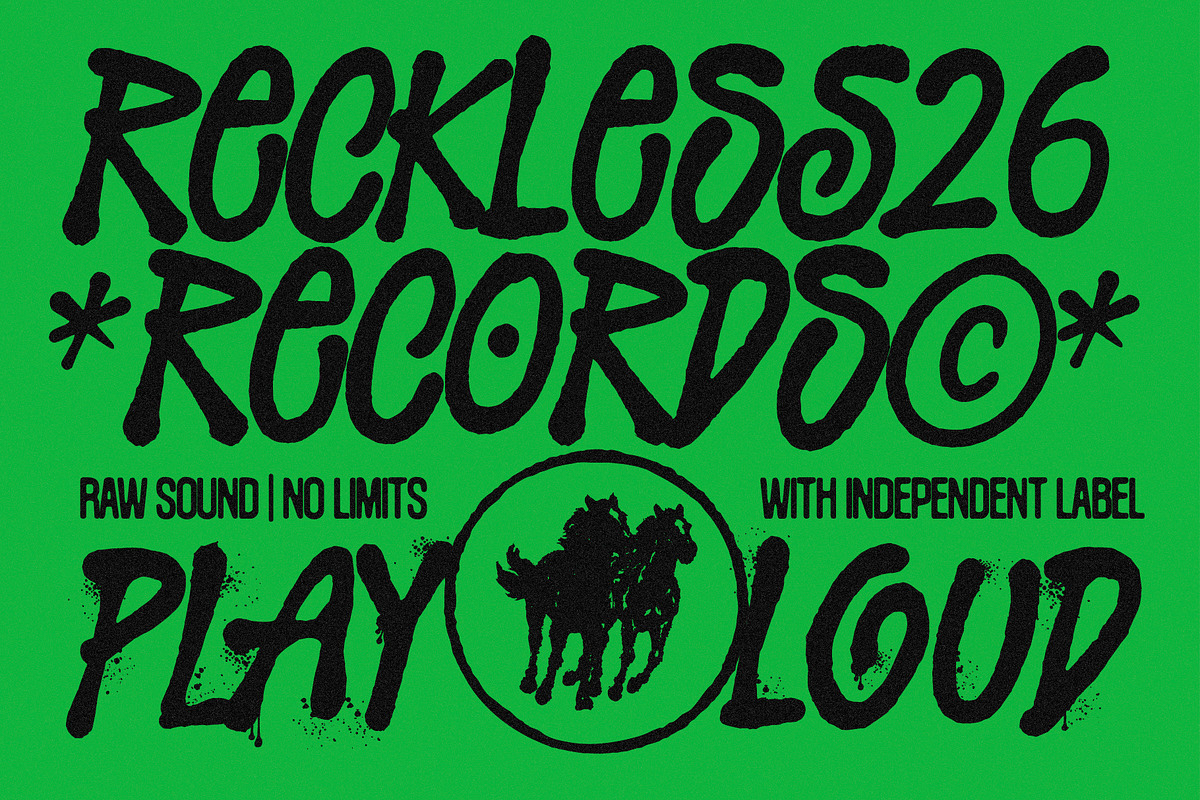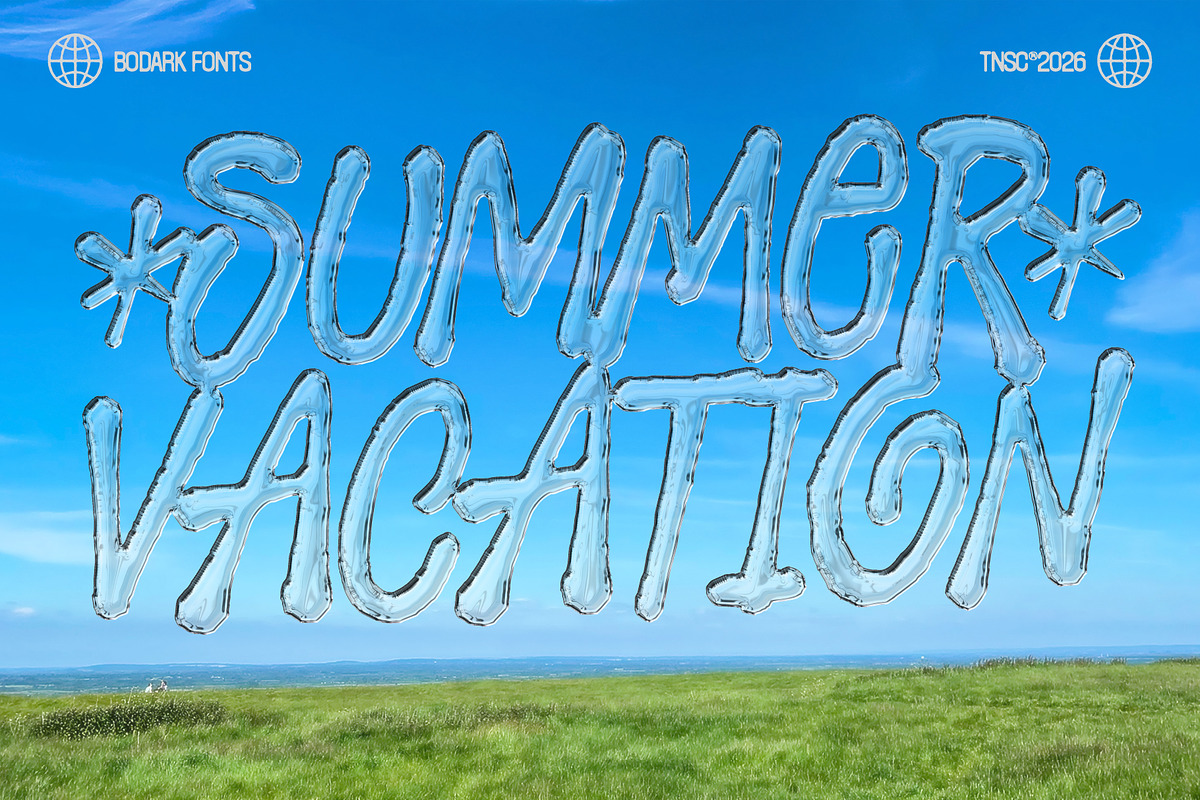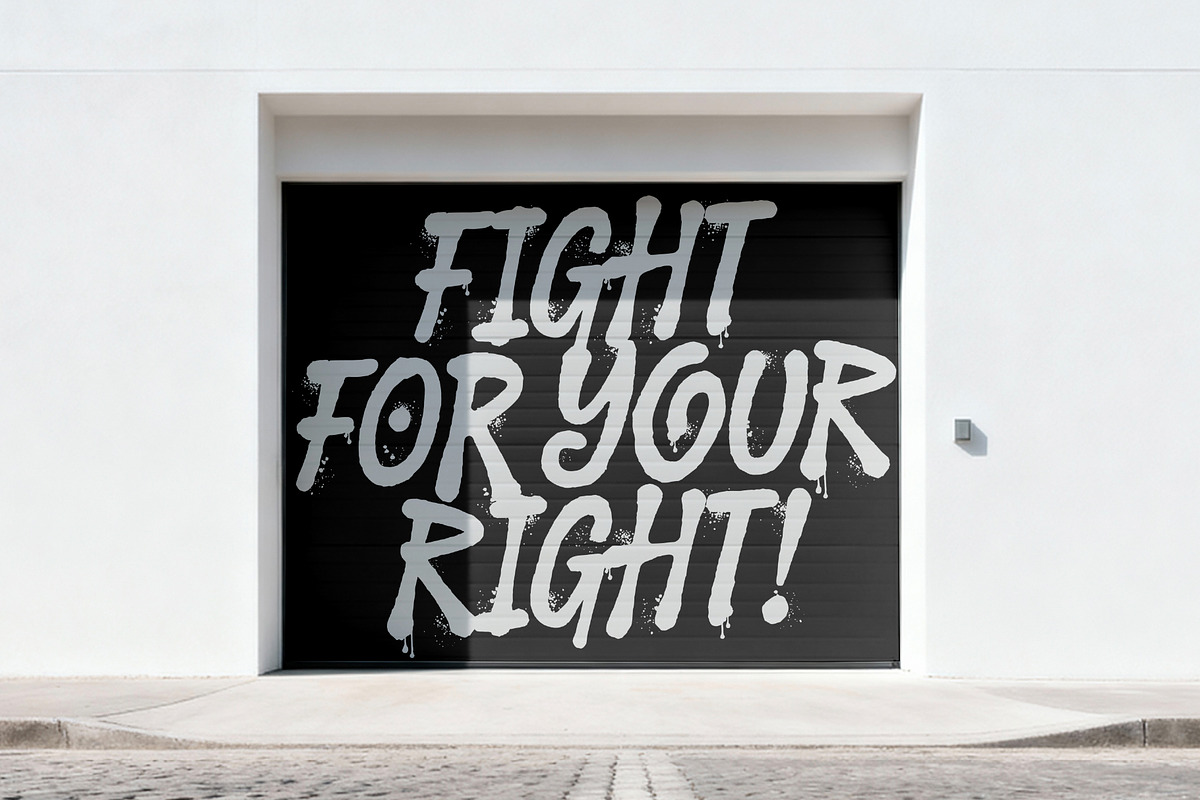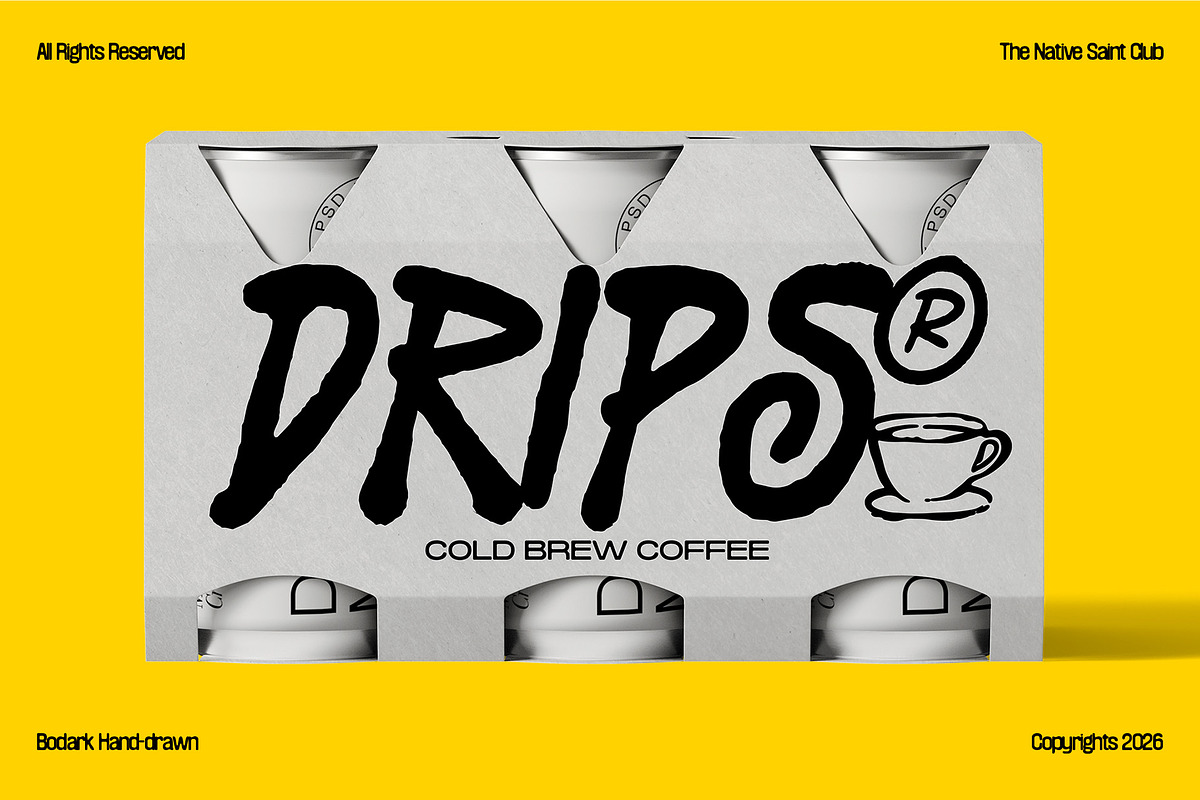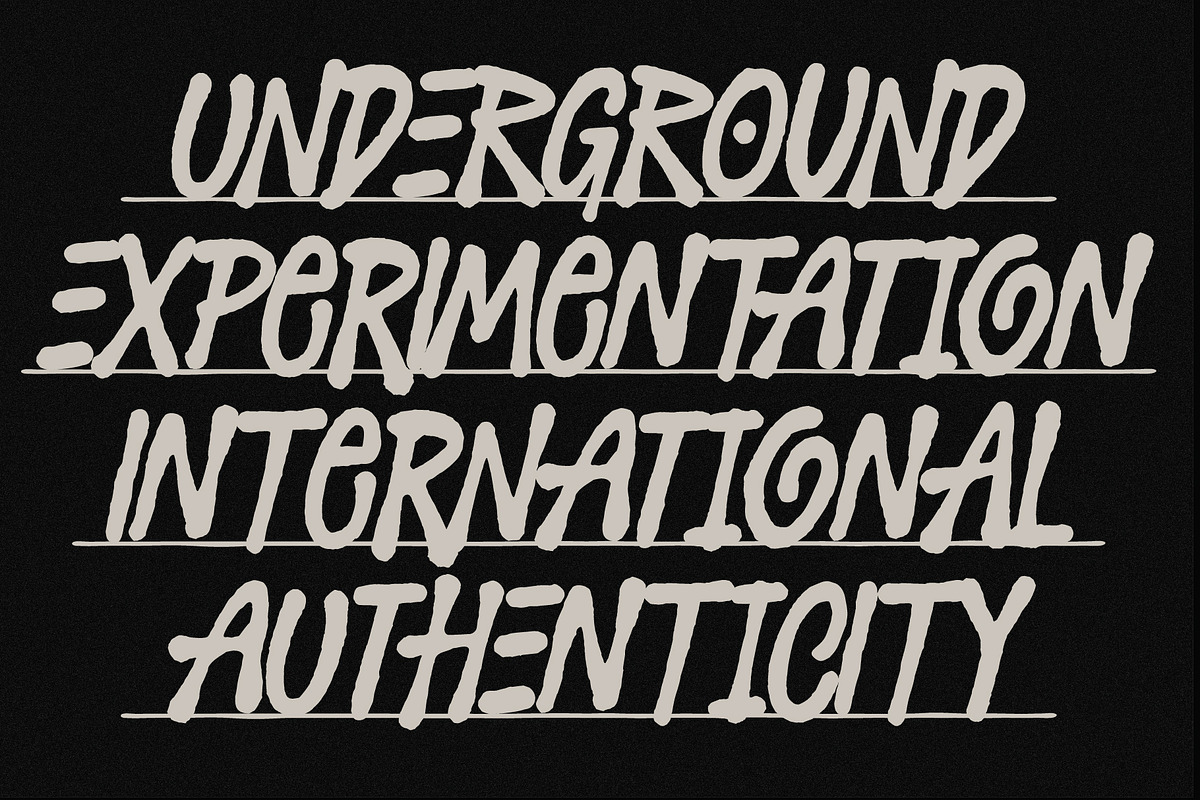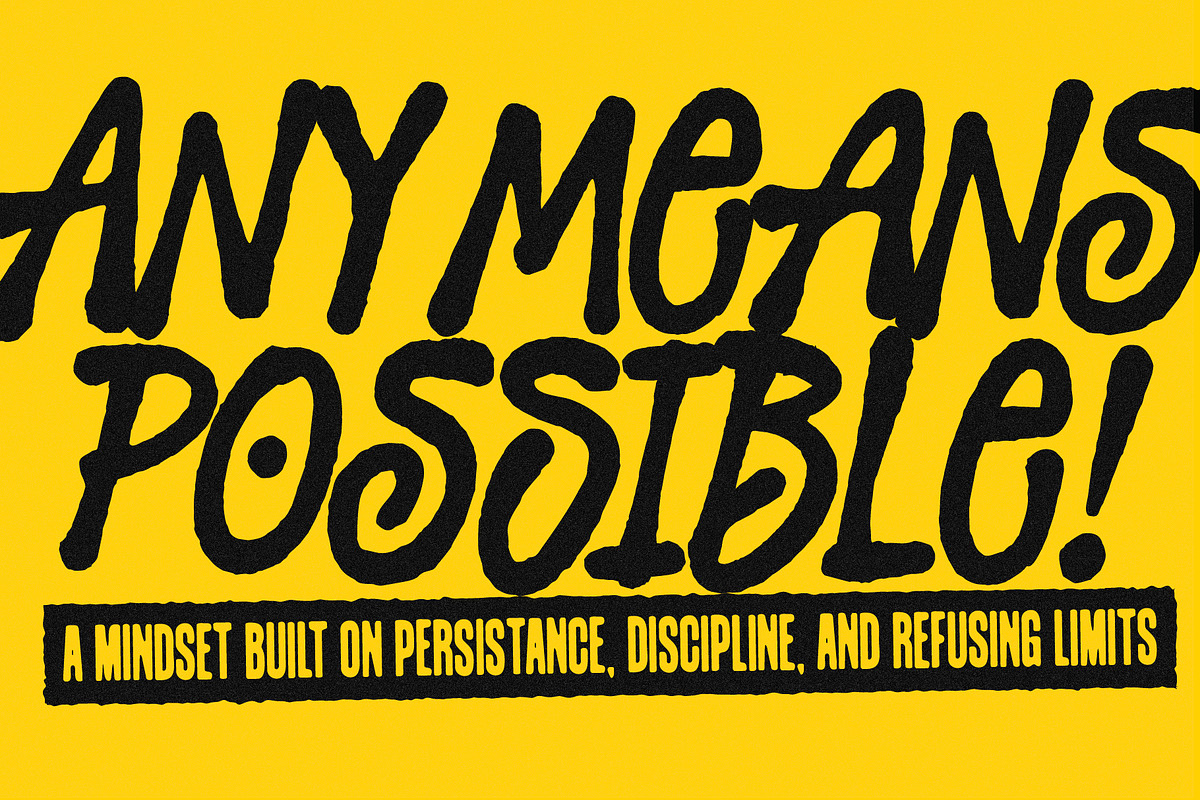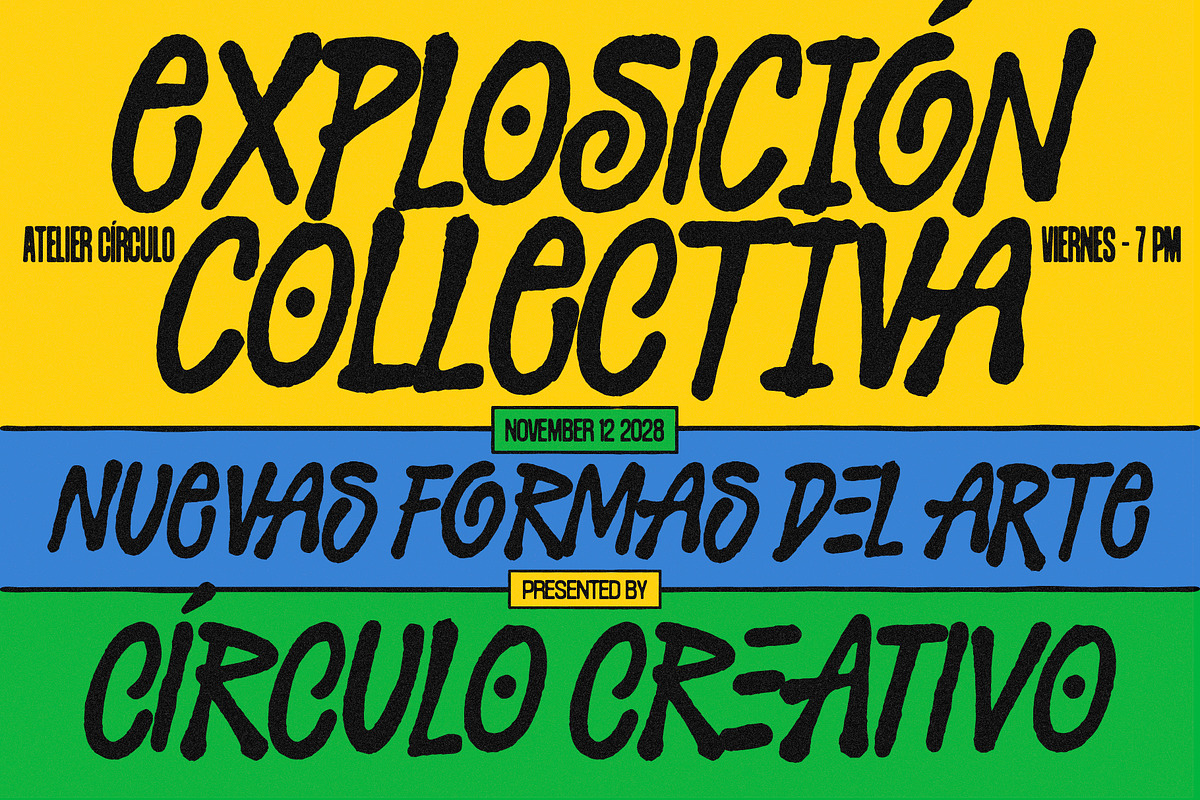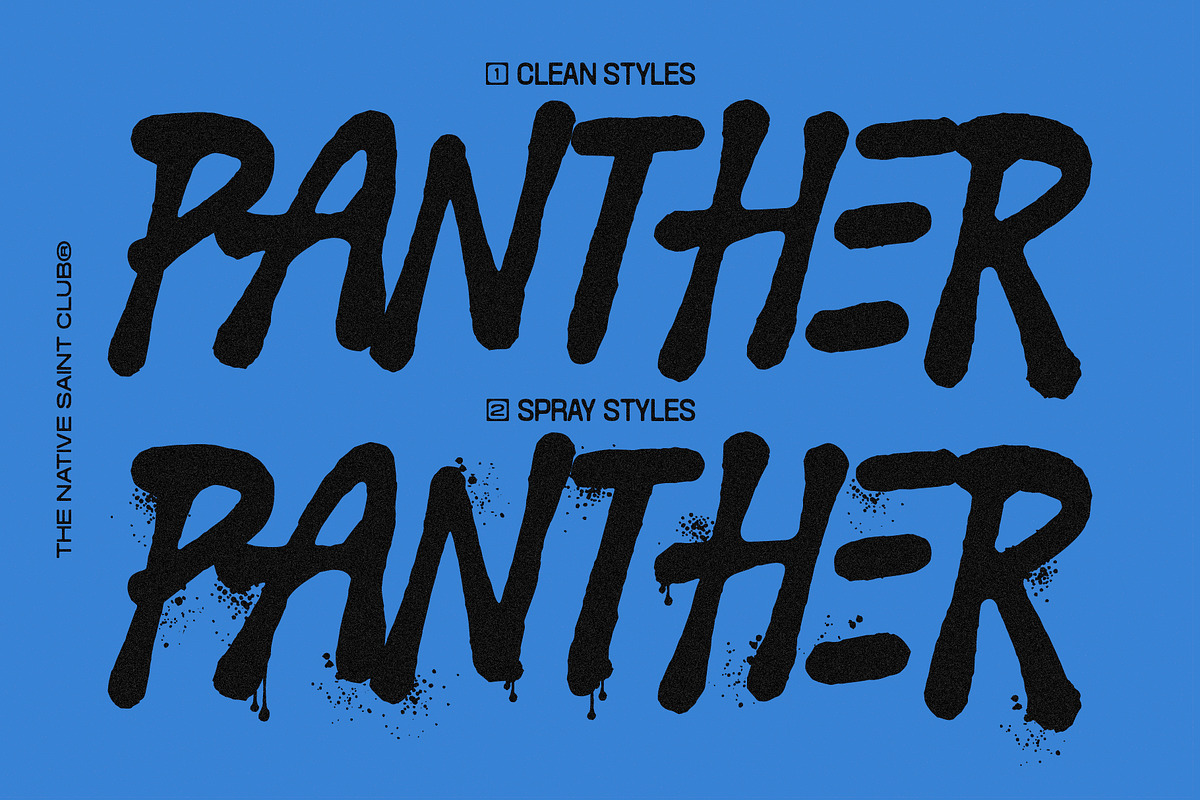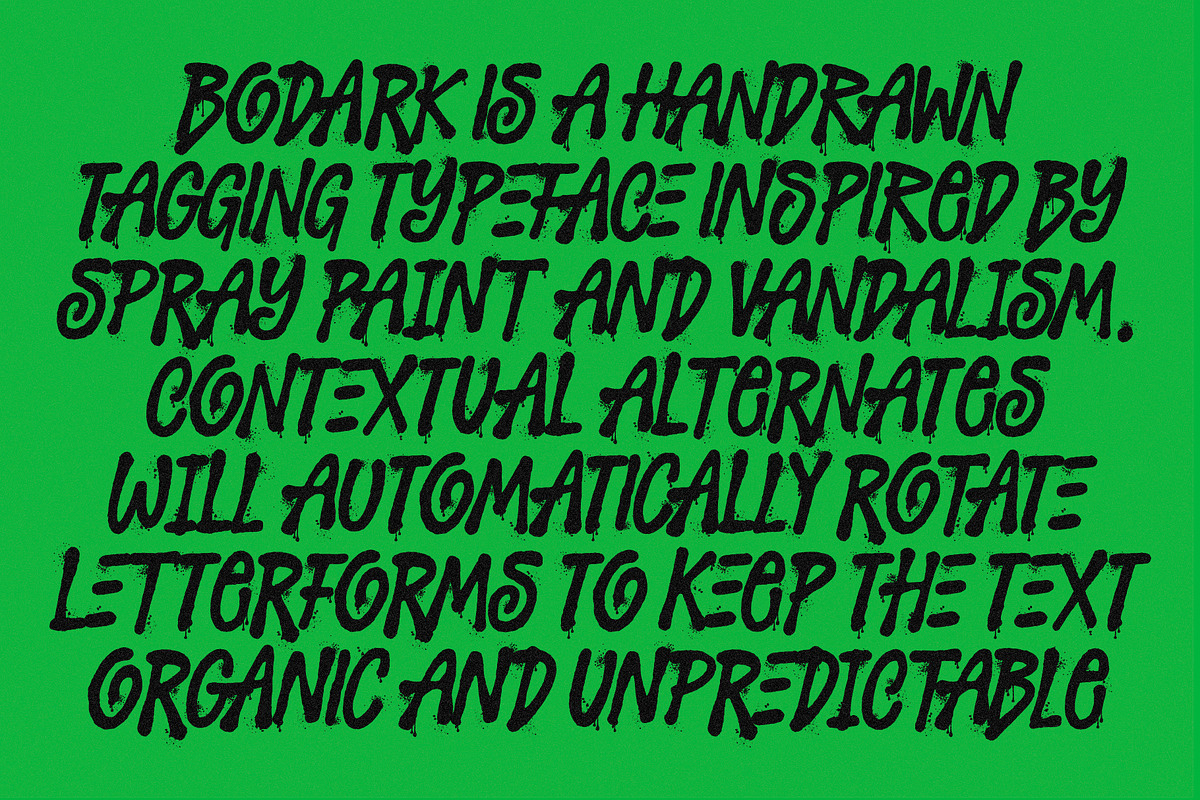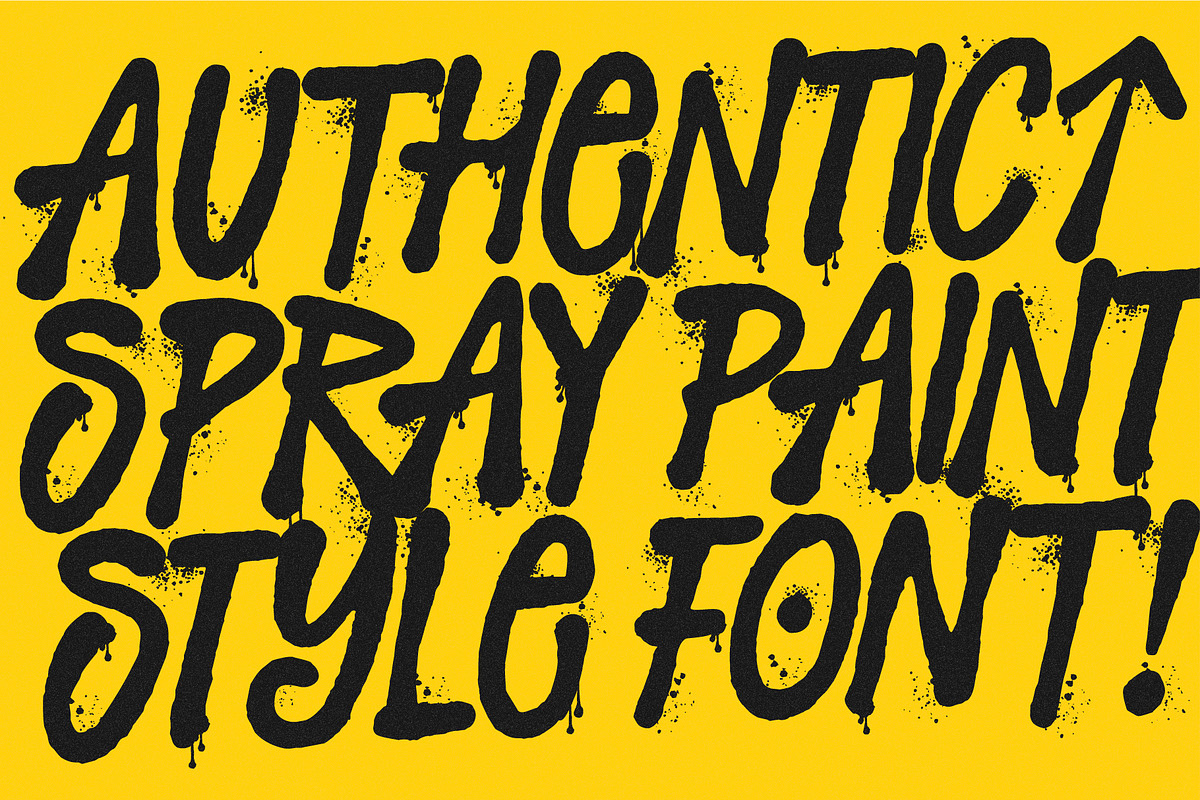
Bodark – Hand Drawn Tagging Font
TNSC Bodark is a hand-drawn display font inspired by raw tagging culture, spray paint, and urban vandalism. Built with an organic and expressive flow, each letter carries a natural and unpredictable feel, bringing authentic street energy into your designs.
It comes in 2 styles: Clean and Spray Styles. Perfect for posters, streetwear branding, album covers, packaging, social media, and bold editorial layouts.